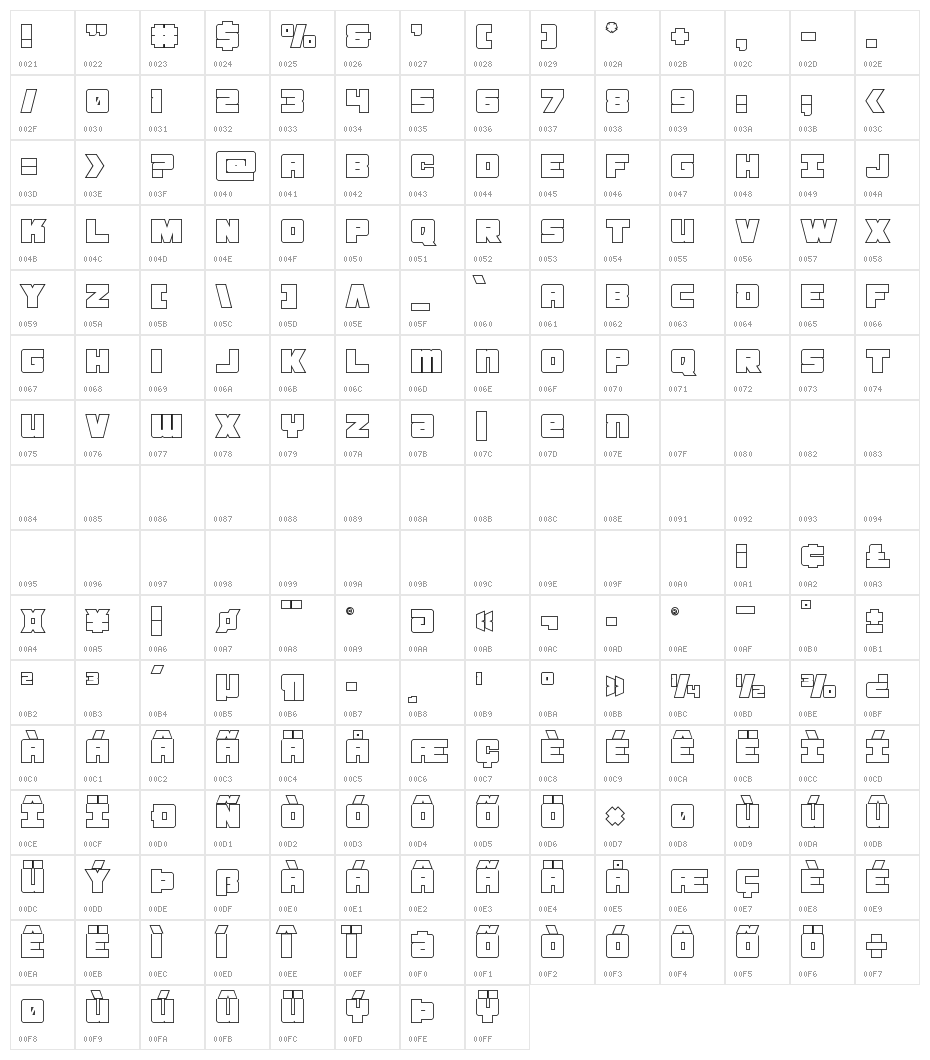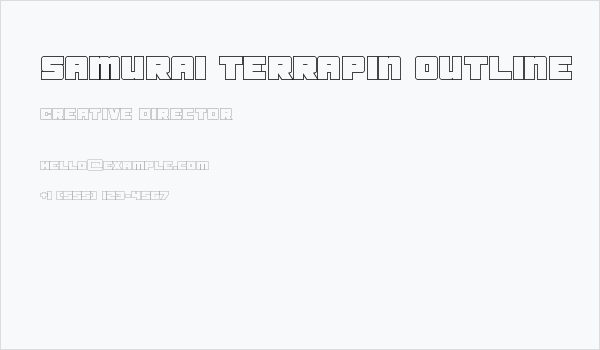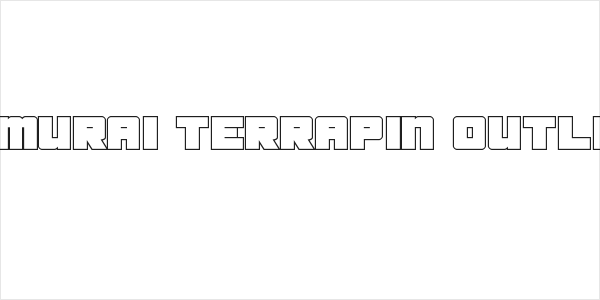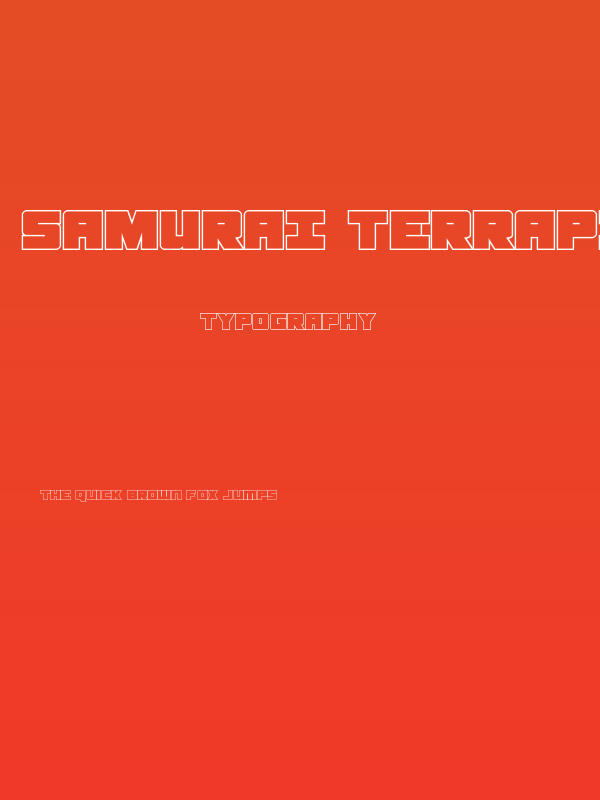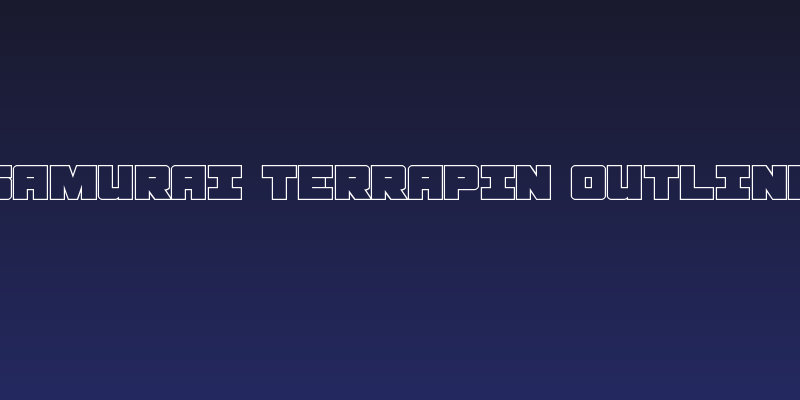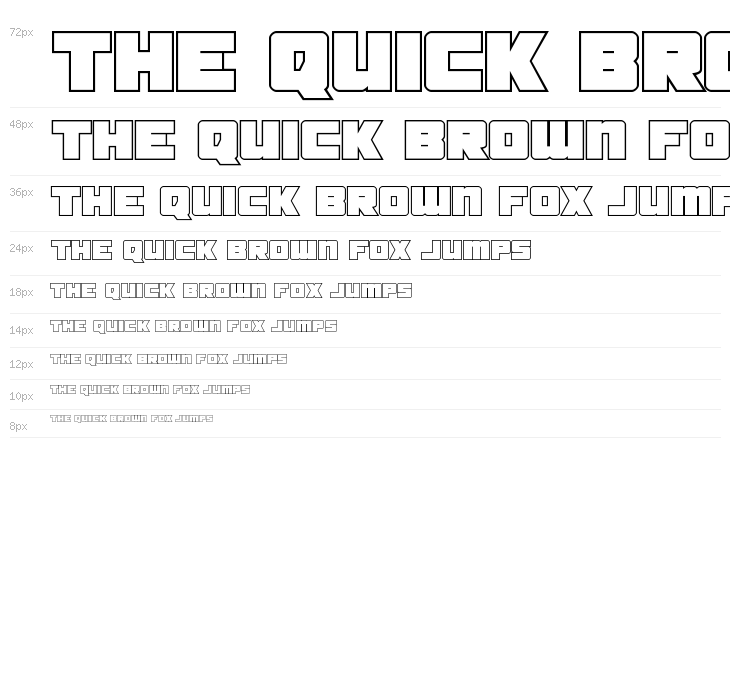
Samurai Terrapin Outline Font
Samurai Terrapin Outline Description
This font features a bold, geometric outline style that gives it a strong and modern appearance. The characters are constructed with sharp angles and straight lines, creating a sense of structure and stability. The uppercase and lowercase letters maintain a consistent height, contributing to a uniform look. The numerals and special characters follow the same design principles, ensuring cohesion across all glyphs. The outline nature of the font adds a unique dimension, making it stand out in various design contexts. Its boldness and clarity make it suitable for attention-grabbing headlines or titles.